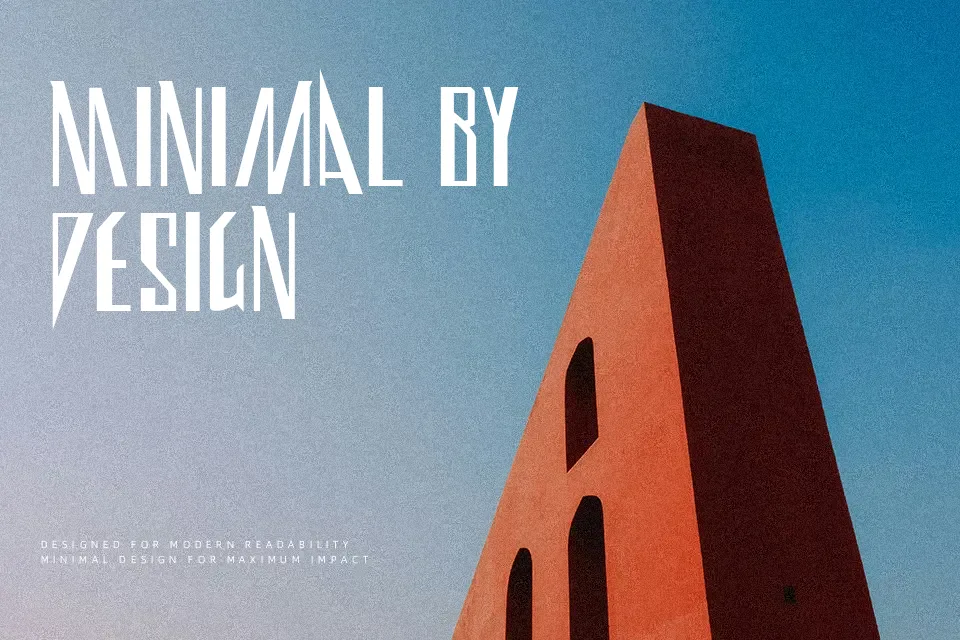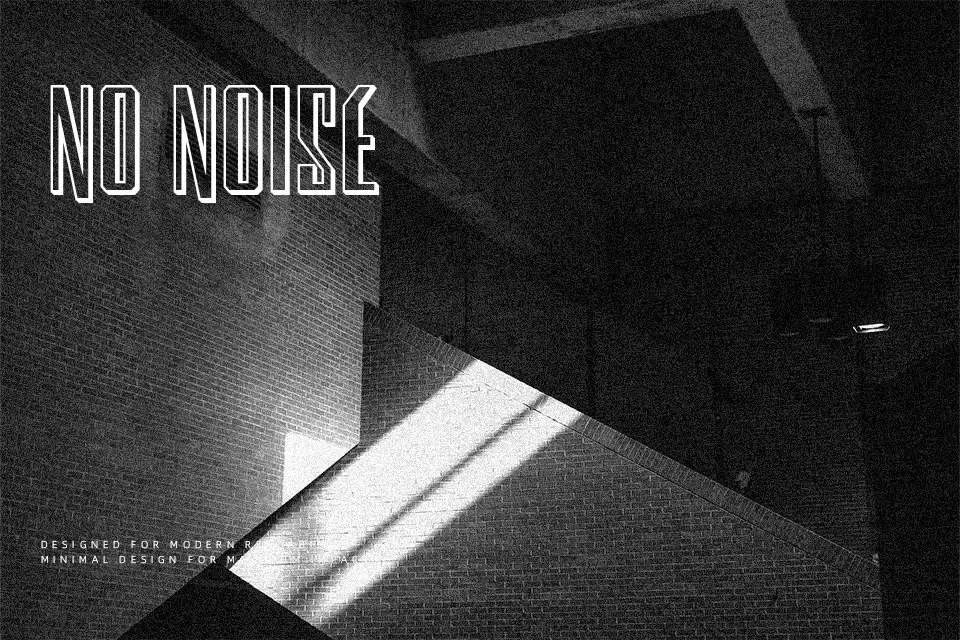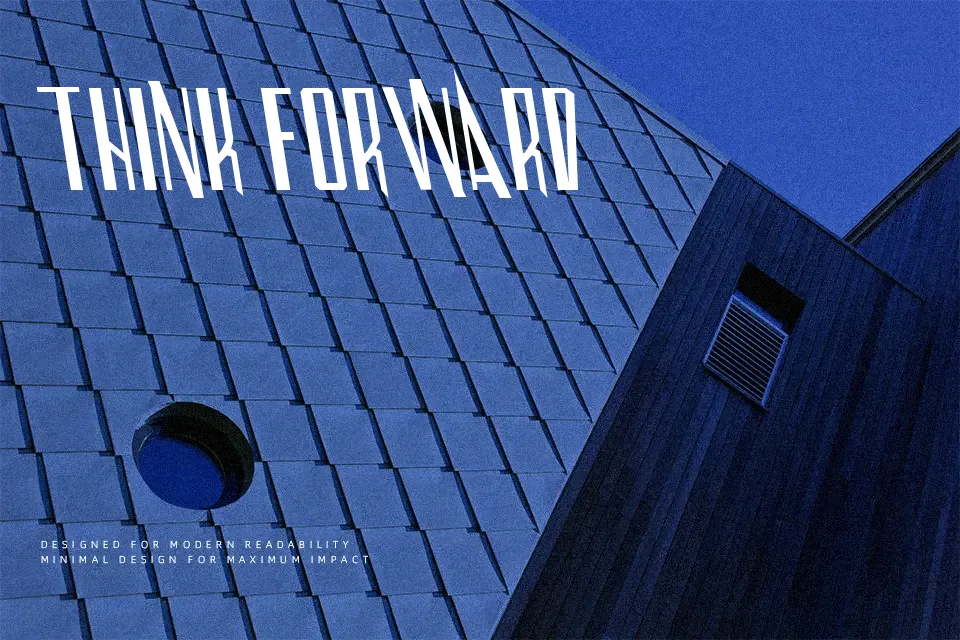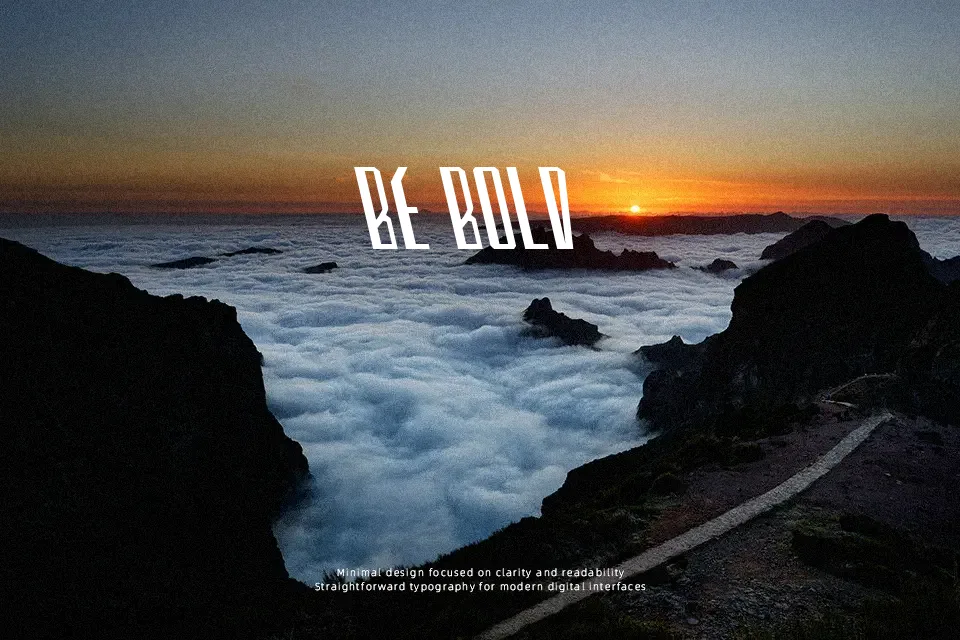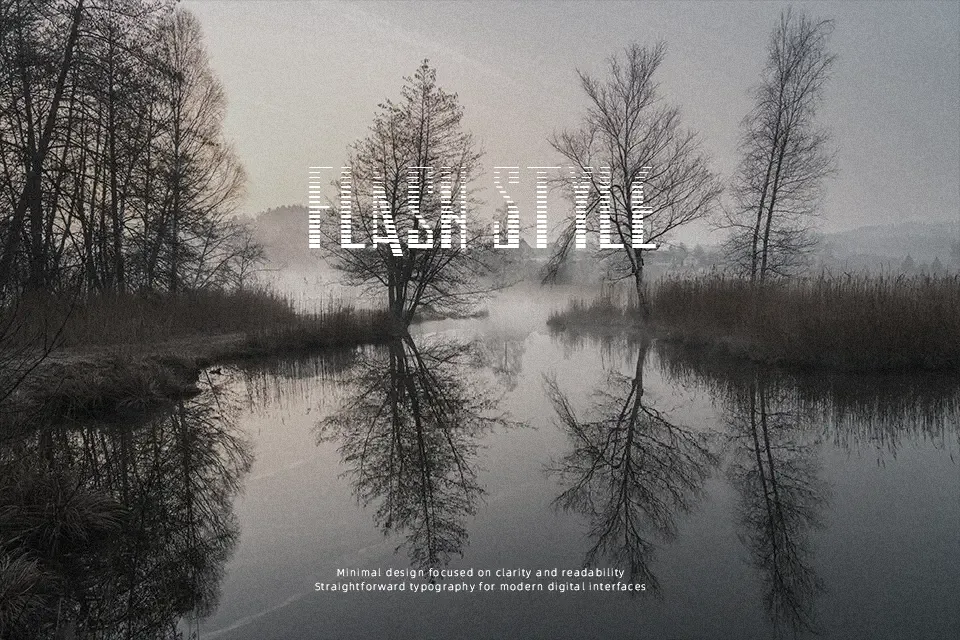
Archnemesis Font
Razor-thin strokes, an extra-condensed silhouette, and aggressive angular cuts define Archnemesis — a sci-fi display font that reads like motion frozen at full speed. Its towering letterforms and tight rhythm generate a metallic, high-adrenaline energy that’s hard to ignore at large sizes. Works well for esports team logos, villain title cards, game UI headers, and comic book cover type where drama is the entire point. At small sizes, though, legibility drops off sharply — the compressed forms and tight spacing make it a poor fit for captions or body copy. If you need impact without compromise, Archnemesis delivers in a headline slot; just don’t ask it to handle nuance.
Best For:- Esports team logos and gaming event banners
– Comic book covers and graphic novel title pages
– Action film or trailer title treatment
– Sci-fi poster and merch graphic headlines
Not Ideal For:- Body text or long-form readable copy
– Corporate identity or professional business materials
– Small-size print such as captions or footnotes
– Soft, approachable, or family-oriented brand contexts
Perfect for advertising, branding, and film, with a bold and condensed style.